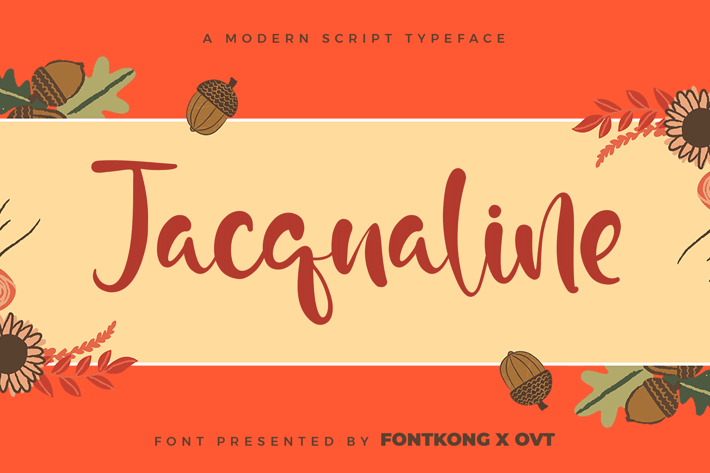
Jacqualine - A Modern Script Typeface
Jacqualine is a stylish and sophisticated script typeface designed to bring a touch of elegance and charm to your design projects. With its flowing curves and graceful letterforms, Jacqualine is perfect for wedding invitations, luxurious branding, chic logos, and upscale stationery. This font combines the timeless beauty of handwritten script with modern design elements, ensuring your work stands out with refinement and grace.
Crafted with meticulous attention to detail, Jacqualine features smooth and delicate characters that offer excellent readability and visual appeal. Its elegant design makes it ideal for both headlines and body text, providing a cohesive and polished look across all your visual communications. The font’s versatility allows it to seamlessly integrate into various design contexts, from digital graphics to printed materials.
Elevate your design projects with Jacqualine, a font that embodies the perfect blend of elegance and modernity. Its unique style and adaptability make it an essential addition to any designer’s toolkit for creating refined and luxurious visuals. Enhance your work with Jacqualine and experience the charm of modern script typography.